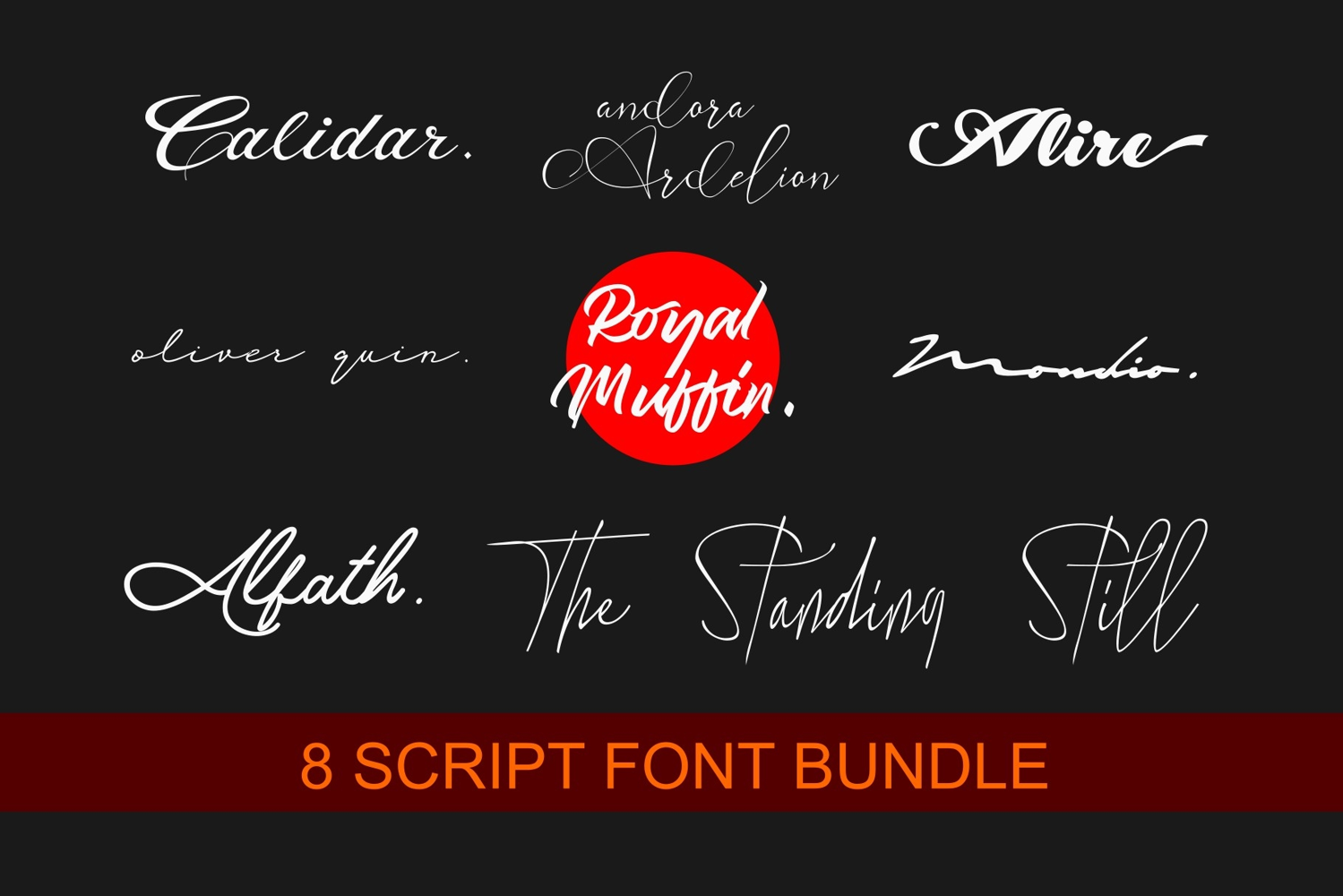
8 SCRIPT FONT BUNDLE
Experience the creativity and versatility of our captivating 'Bundle of Eight' script font collection. Each distinctive typeface has been meticulously fashioned to showcase unique artistic expression while ensuring legibility. This comprehensive assembly comprises a cornucopia of diverse design styles to enrich and elevate your design aesthetics. Stand out and make your mark with our 'Bundle of Eight' script fonts, a true testament to innovative typography.